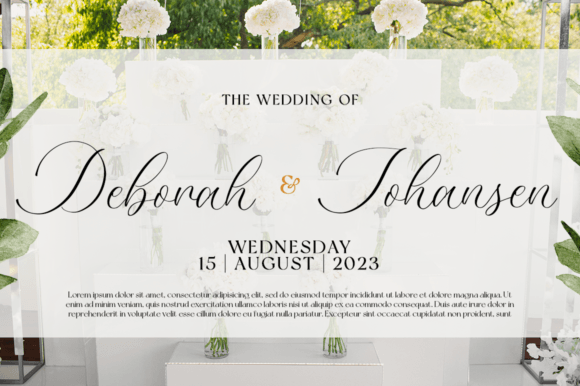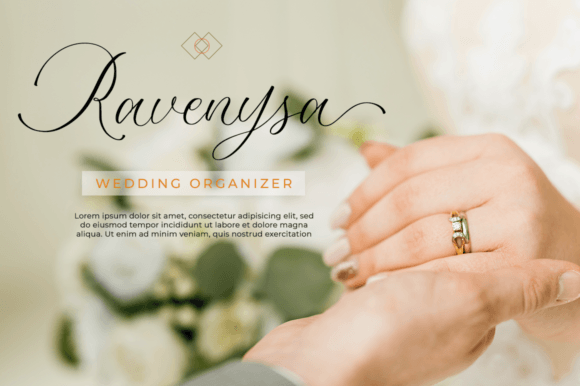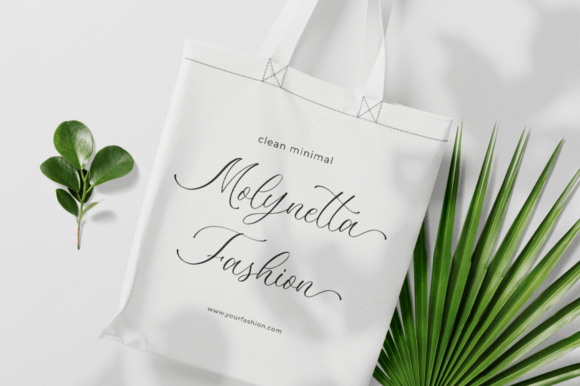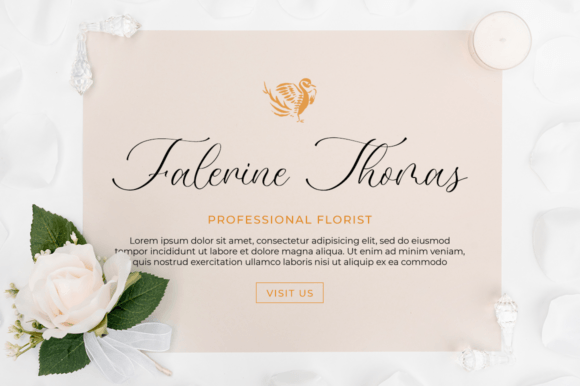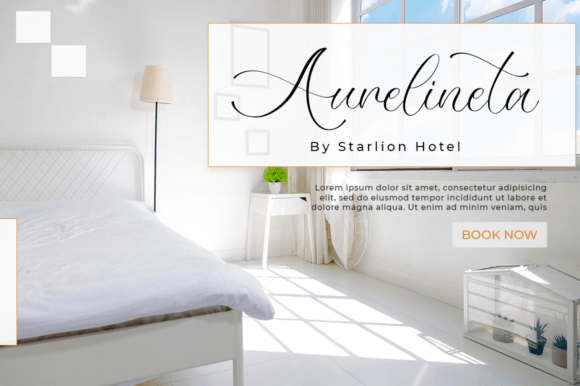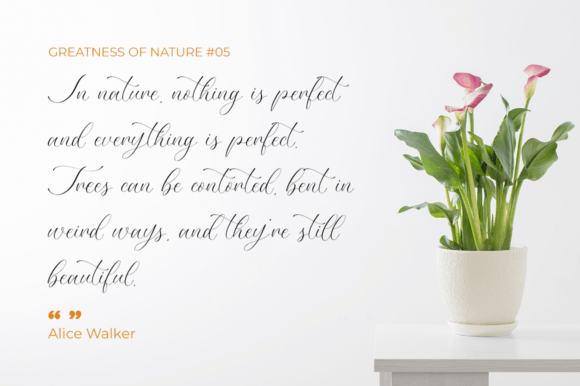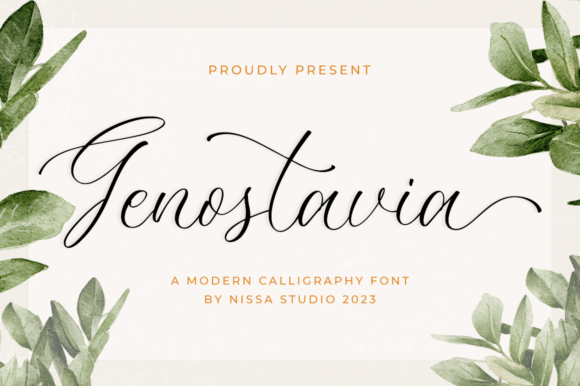
Introducing Genostavia Font: Elevate Your Designs with Elegance and Sophistication
In the world of typography, a font can make or break a design. For designers and crafters seeking to add a touch of class and elegance to their work, Genostavia Font is an exceptional choice. This beautiful script font boasts a modern look that is perfect for a wide range of applications, from logos and branding to invitations, stationery, wedding designs, and social media posts.
The Characteristics of Genostavia Font
Genostavia Font is distinguished by its classy, elegant, and modern aesthetic. Its script style is reminiscent of handwritten text, but with a sophistication that elevates it above more casual fonts. This makes it an ideal choice for designers looking to add a personal touch to their work without sacrificing professionalism.
One of the key benefits of Genostavia Font is its versatility. It can be used in a multitude of design projects, including:
- Logos and Branding: Create a lasting impression with a unique and elegant logo that sets your brand apart.
- Invitations and Stationery: Add a touch of sophistication to event invitations, business cards, and letterheads.
- Wedding Designs: Make wedding invitations, programs, and decorations truly unforgettable with this beautiful script font.
- Social Media Posts: Elevate your social media content with stylish text that captures attention.
Genostavia Font is PUA (Private Use Area) encoded, which means that accessing all the glyphs and swashes is straightforward. PUA encoding allows designers to easily access and use the extended character set of a font, including alternates, ligatures, and swashes, without needing specialized software. This feature is particularly useful for those who want to customize their text with unique flourishes and variations.
Why Choose Genostavia Font?
For designers and crafters, the choice of font can significantly impact the outcome of a project. Here are a few reasons why Genostavia Font stands out:
- Elegant and Modern: Its unique blend of elegance and modernity makes it suitable for a wide range of projects.
- Handwritten Touch: Adds a personal and human touch to designs, making them more engaging and relatable.
- PUA Encoded: Offers ease of use with immediate access to glyphs and swashes, allowing for greater creativity and customization.
- Versatile: Can be used in various design applications, making it a valuable addition to any designer’s toolkit.
Tips for Using Genostavia Font Effectively
To make the most of Genostavia Font, consider the following tips:
- Pair with Complementary Fonts: When using Genostavia Font in a project, consider pairing it with a simpler, sans-serif font for contrast and readability.
- Adjust Size and Color: Experiment with different sizes and colors to ensure the text complements the overall design.
- Utilize Swashes and Glyphs: Take advantage of the PUA encoding to add unique swashes and glyphs, making your text more dynamic and interesting.
Genostavia Font is a versatile and elegant script font that can elevate any design project. Its modern look, combined with its handwritten charm and PUA encoding, makes it an excellent choice for designers and crafters looking to add a touch of sophistication and elegance to their work. Whether you’re creating logos, invitations, wedding designs, or social media posts, Genostavia Font is sure to make your designs stand out.